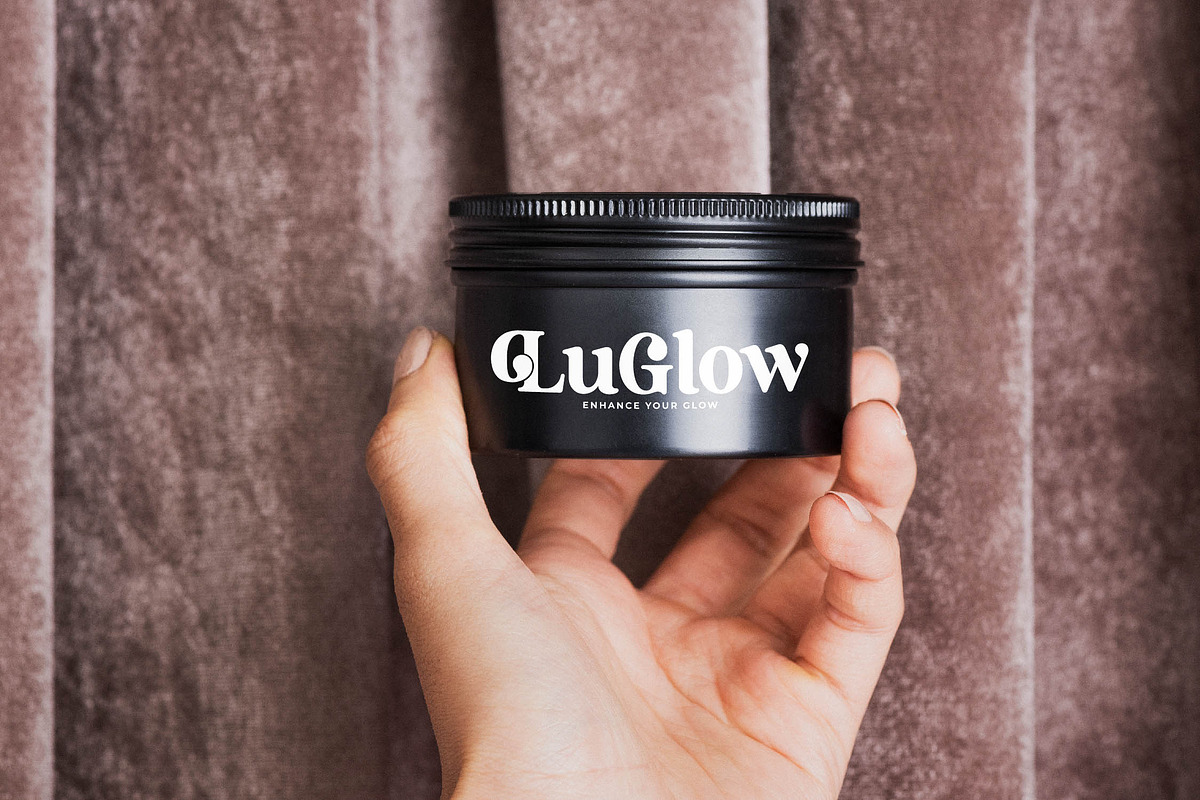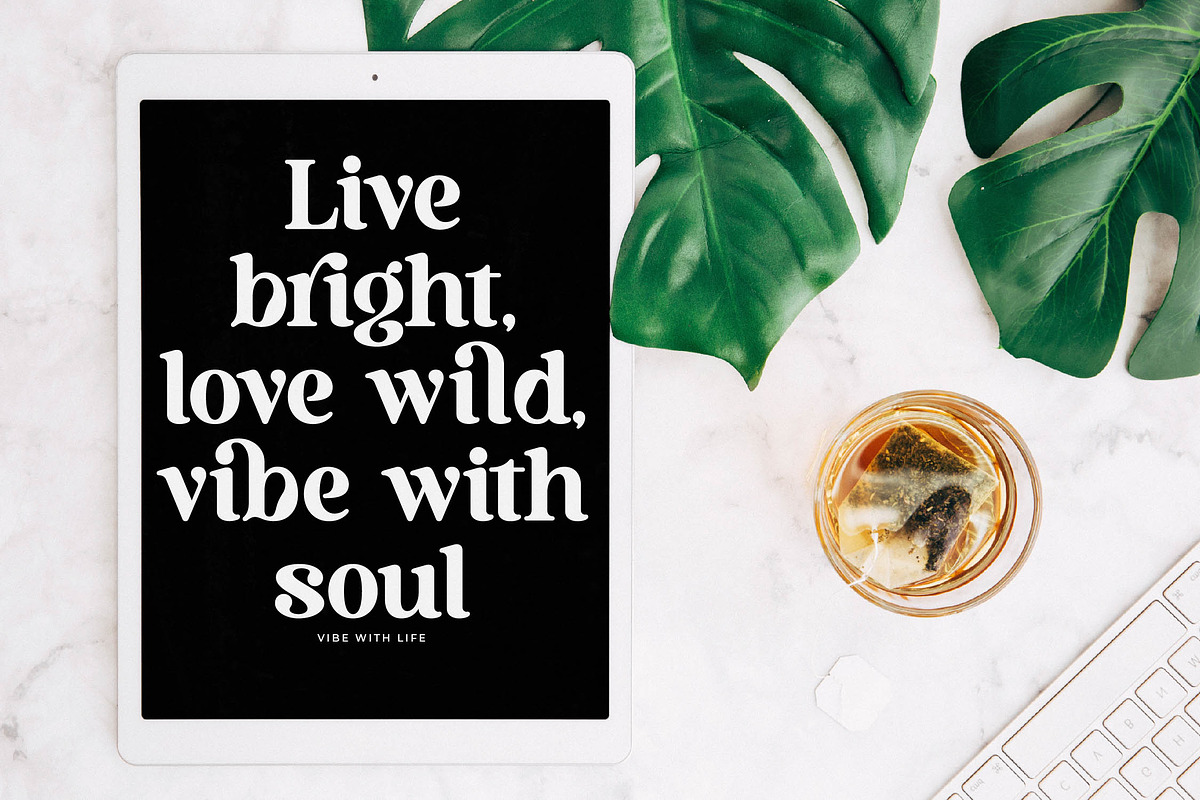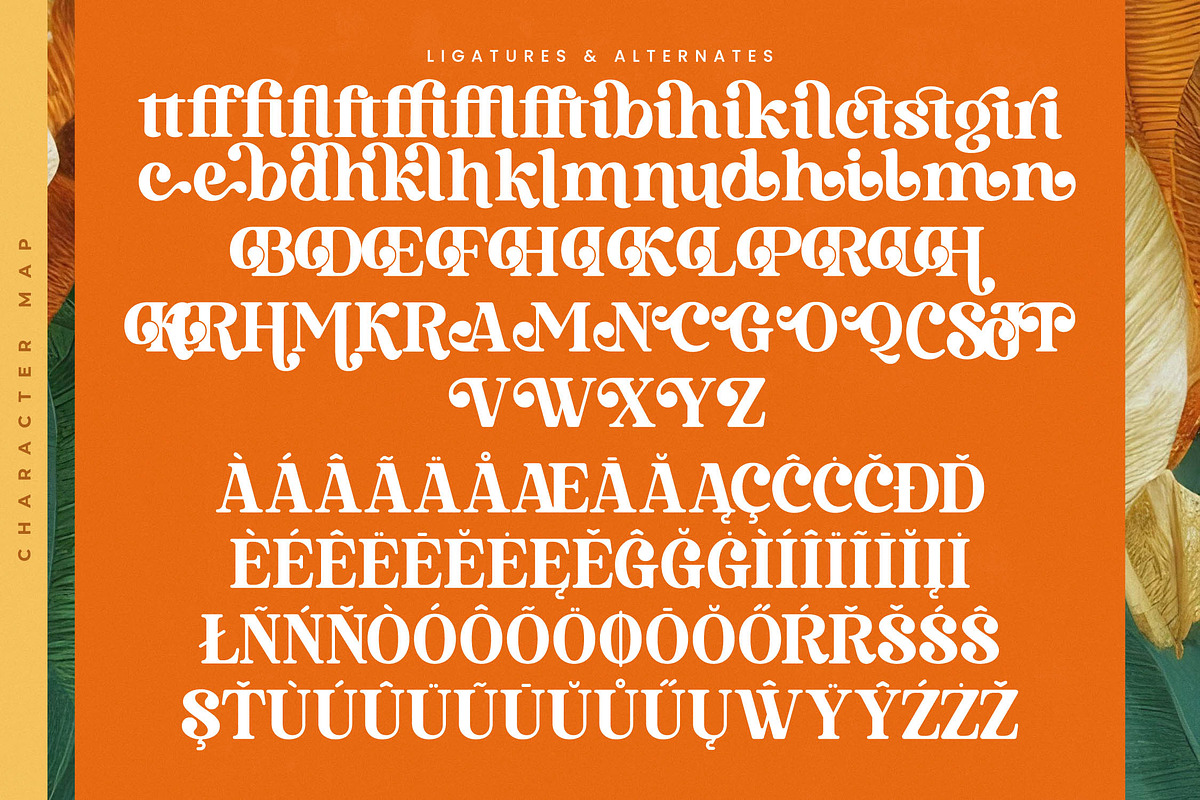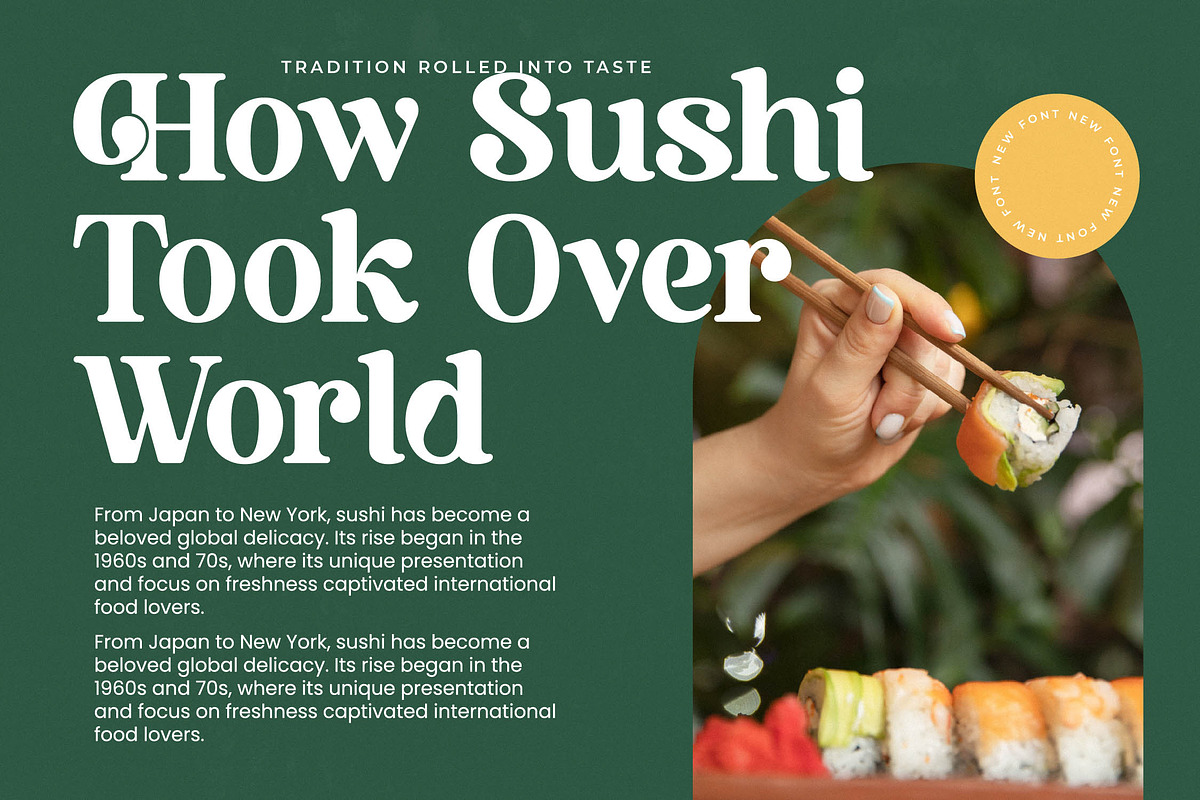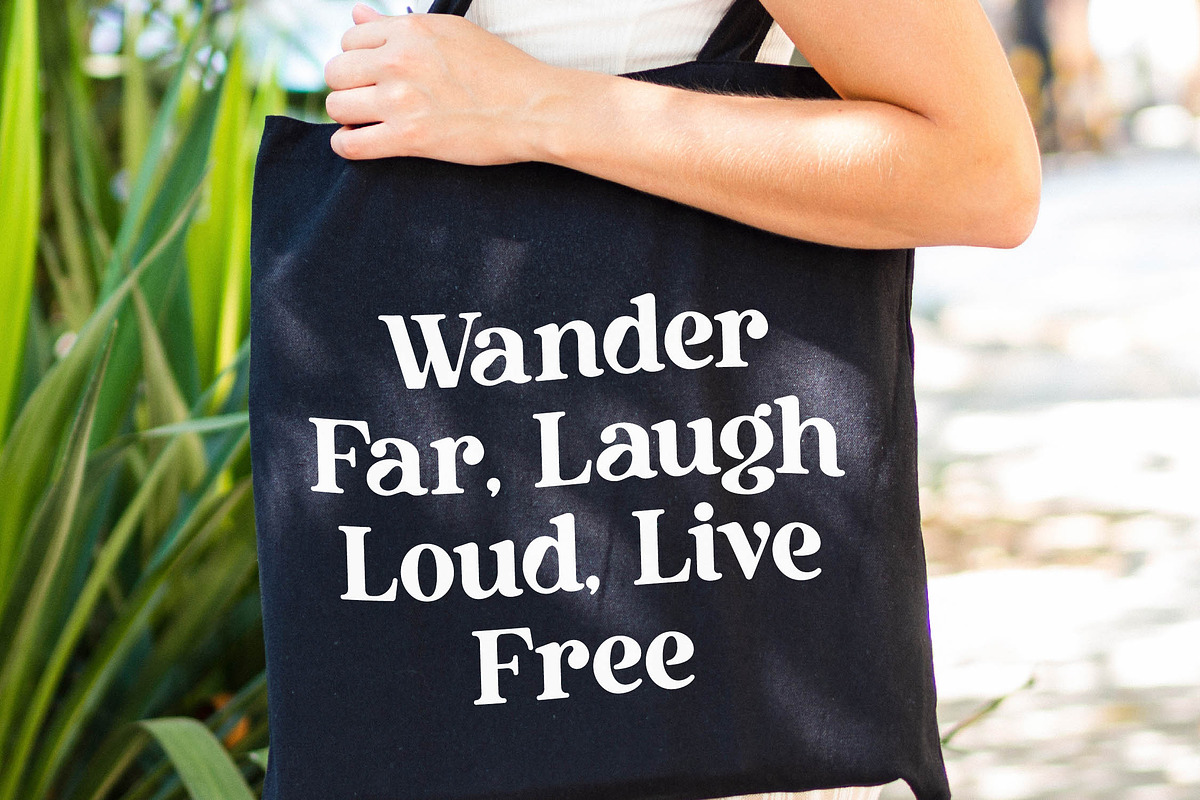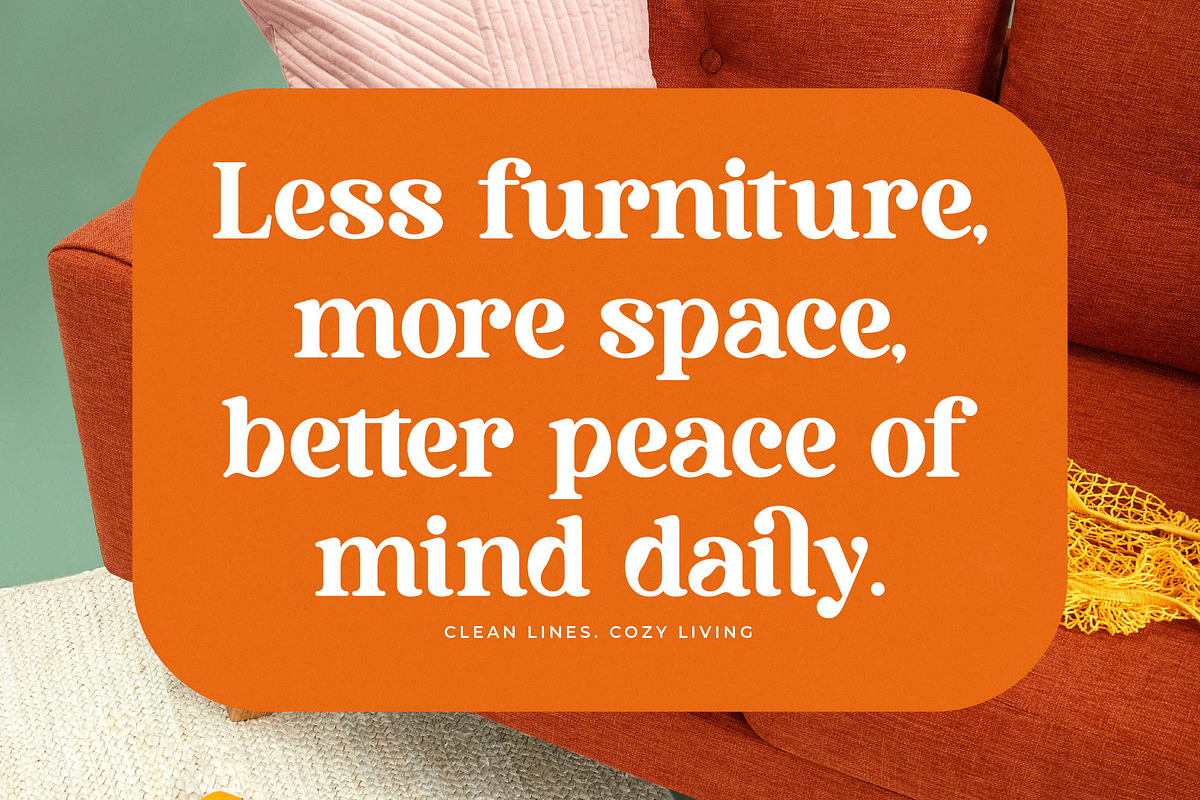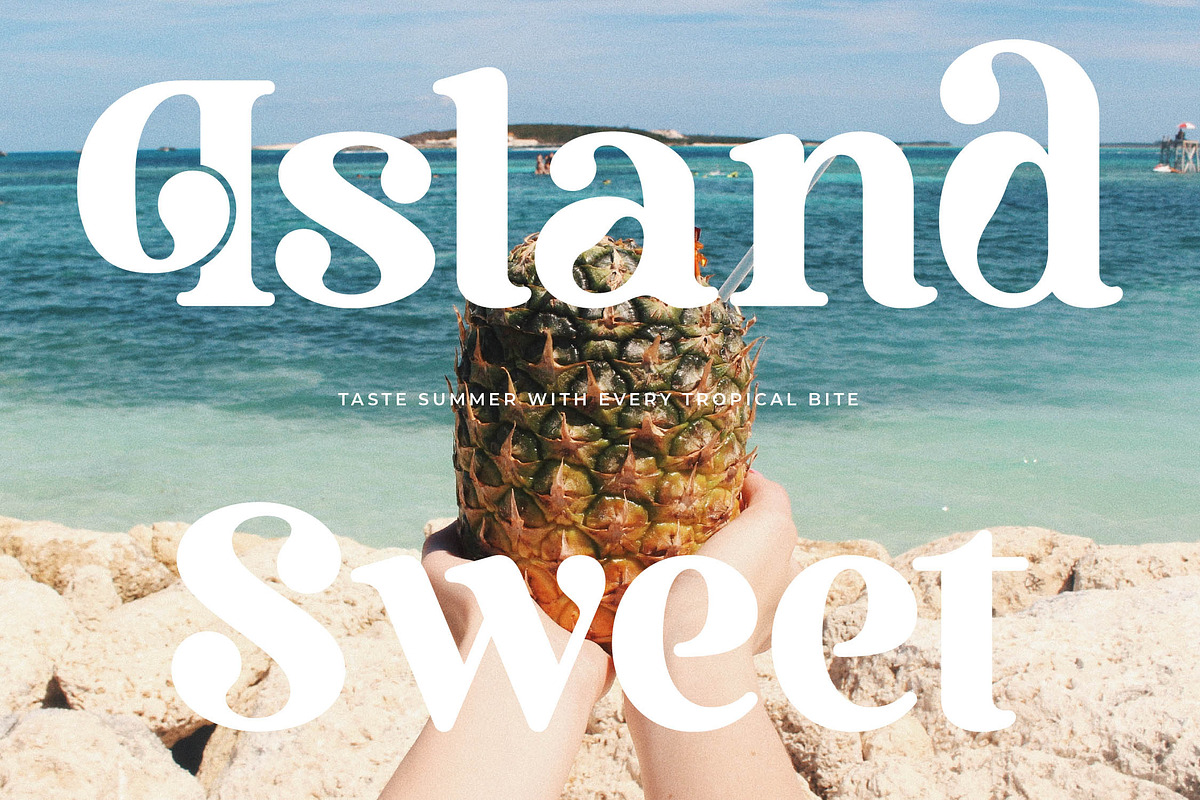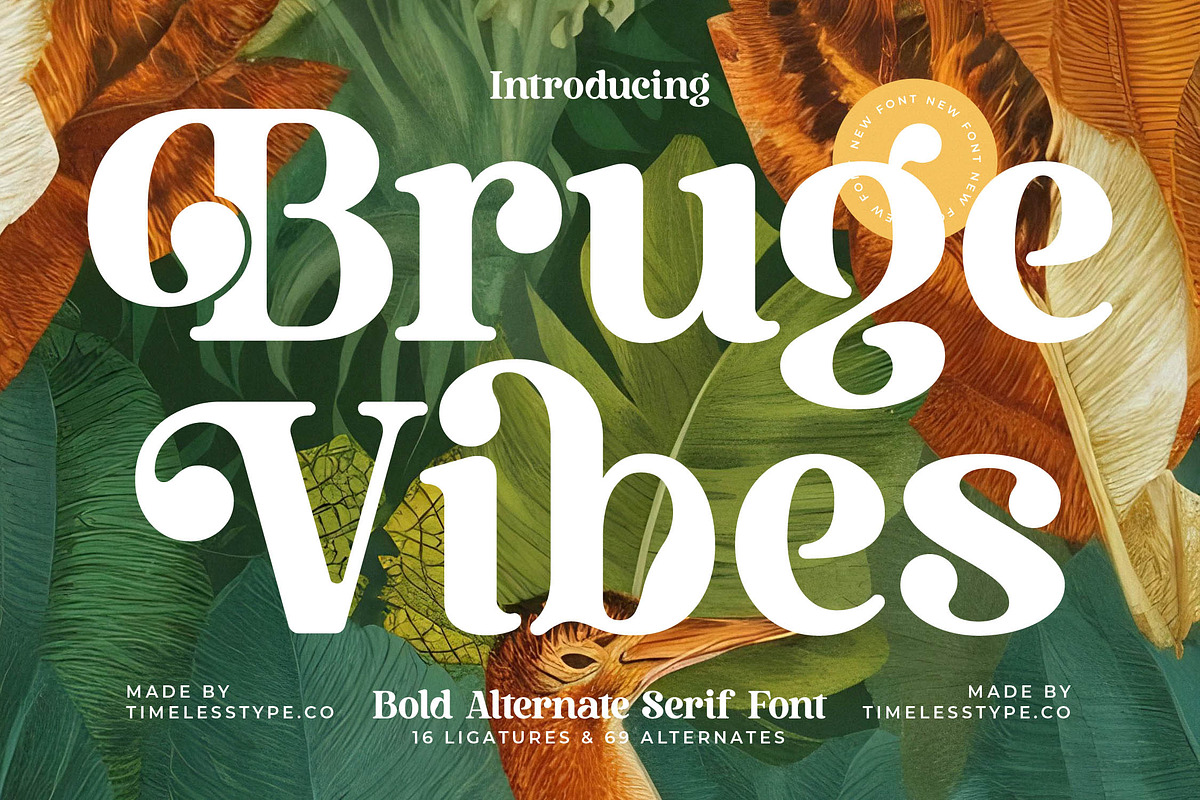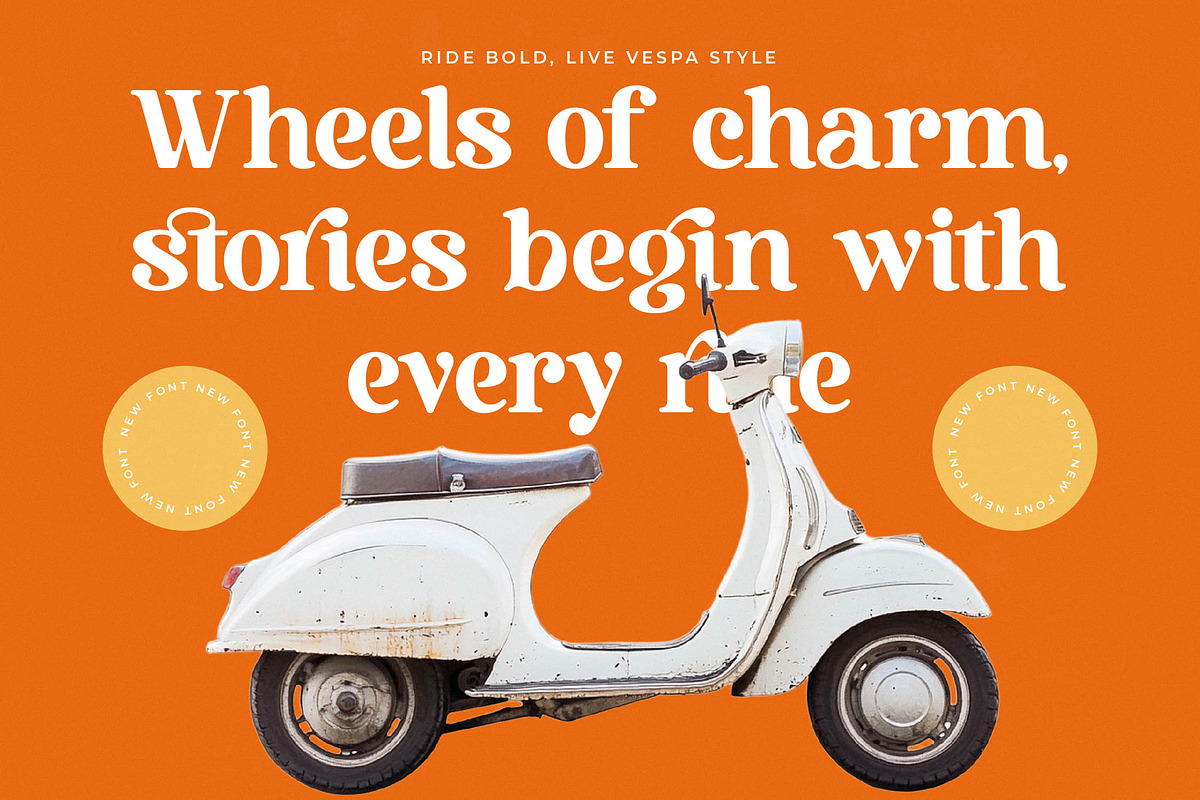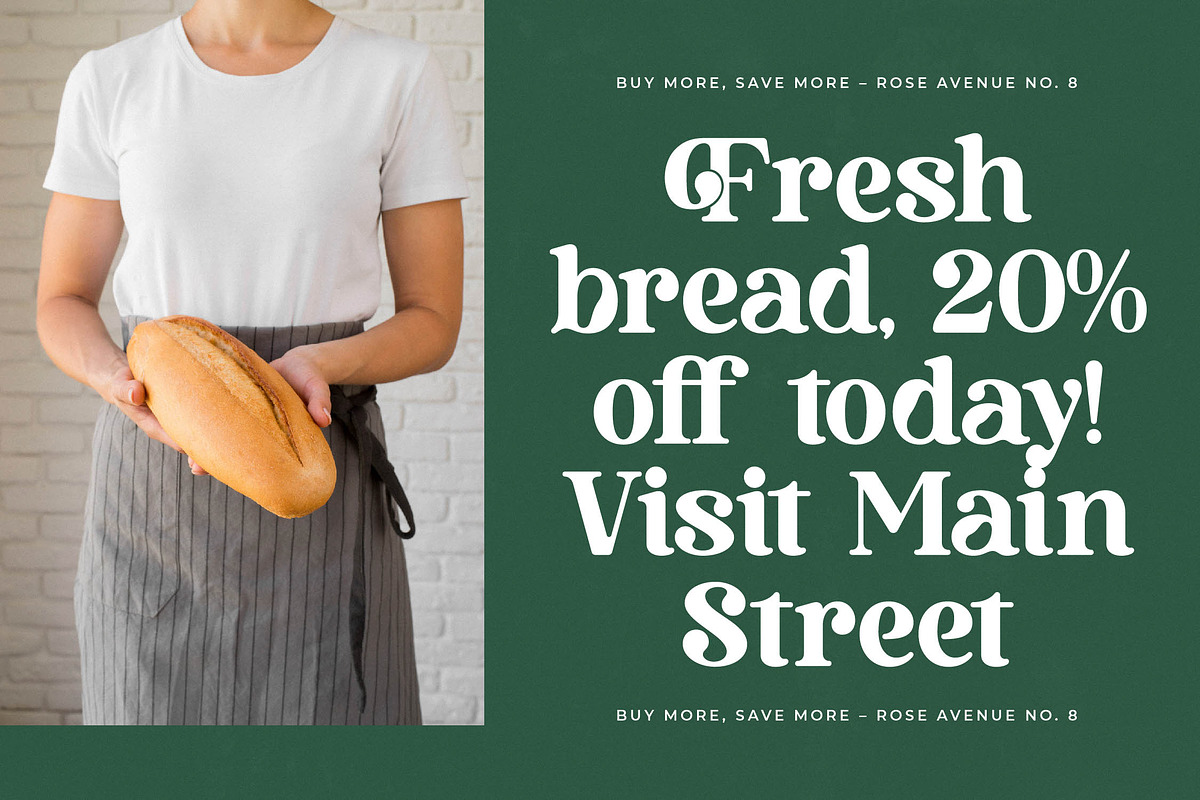
Bruge Vibes Bold Display Serif
Experience the lush rhythm of high-end design with Bruge Vibes, a typeface that captures the essence of sophisticated summer nostalgia. This font brings a refreshing, organic energy to your creative toolkit, blending timeless elegance with a contemporary twist.
Inspired by the vibrant textures of tropical flora and the golden hour glow of a coastal retreat, this typeface breathes life into every character. Its curves mimic the natural flow of exotic leaves, creating a visual narrative that is both exotic and deeply grounded in classic serif traditions.
As a modern serif display, it commands attention through its luxury typography and striking high-contrast serif details that define professional aesthetics. The editorial font quality ensures your headers carry a significant branding impact, making it an essential choice for designers seeking a unique visual voice.
Tapping into the current modern serif trend, this typeface meets the demand for editorial display fonts that offer more than just legibility. It prioritizes character-driven typography, allowing brands to stand out in a saturated market with its distinctive loops and elegant letterforms.
This versatile typeface is the perfect companion for logo design and comprehensive branding projects that require a touch of class. From high-end editorial layouts and luxury packaging to romantic wedding stationery and avant-garde fashion lookbooks, it adapts seamlessly to diverse creative needs.
Packed with creative flexibility, the set includes a wide array of ligatures and alternates to customize your text, alongside decorative swashes for added flair. Full multilingual support and international characters ensure your message resonates across global markets without compromising on style.
- Ligature 16 Alternate 69